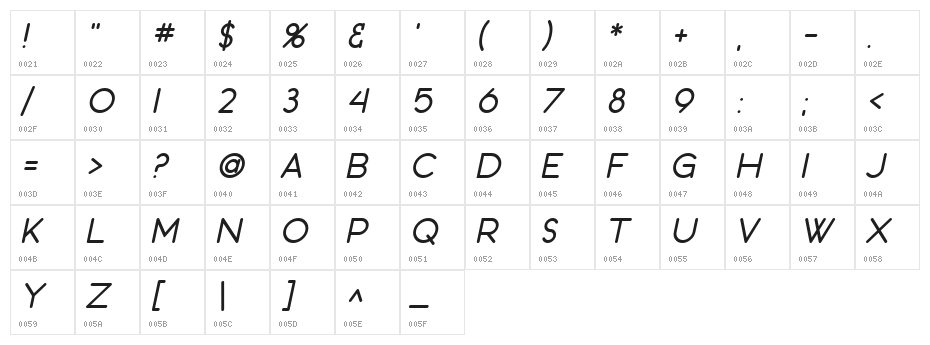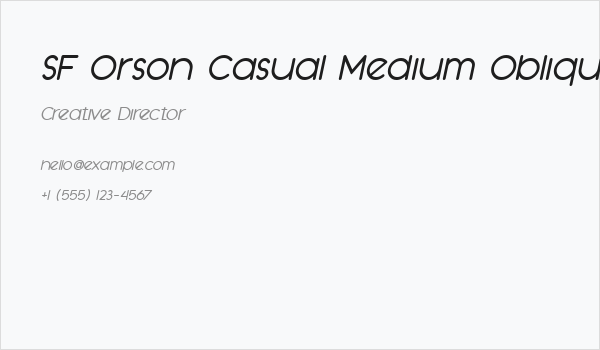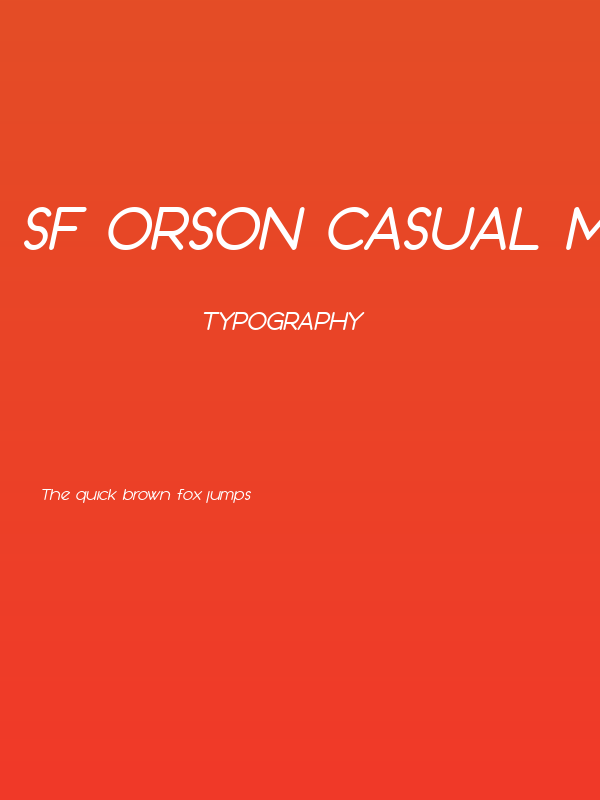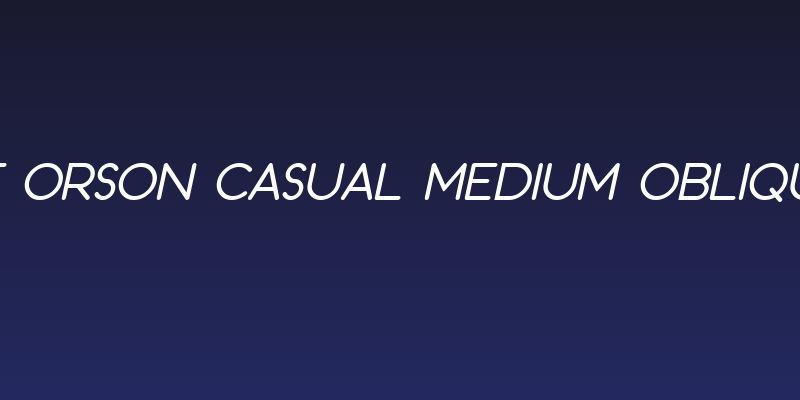
SF Orson Casual Medium Oblique Font
SF Orson Casual Medium Oblique Description
This font exhibits a casual and approachable style with a medium weight and oblique orientation. The characters are slightly slanted, giving it a dynamic and informal appearance. The strokes are smooth and consistent, with rounded edges that enhance its friendly and relaxed feel. The uppercase and lowercase letters maintain a uniform height, contributing to its readability. The numbers and special characters are designed with the same casual flair, making them blend seamlessly with the alphabet. Overall, this font is versatile and can be used in various contexts where a laid-back yet professional look is desired.
| Proposed Projects | Ideal for branding, casual invitations, social media graphics, and informal presentations. |